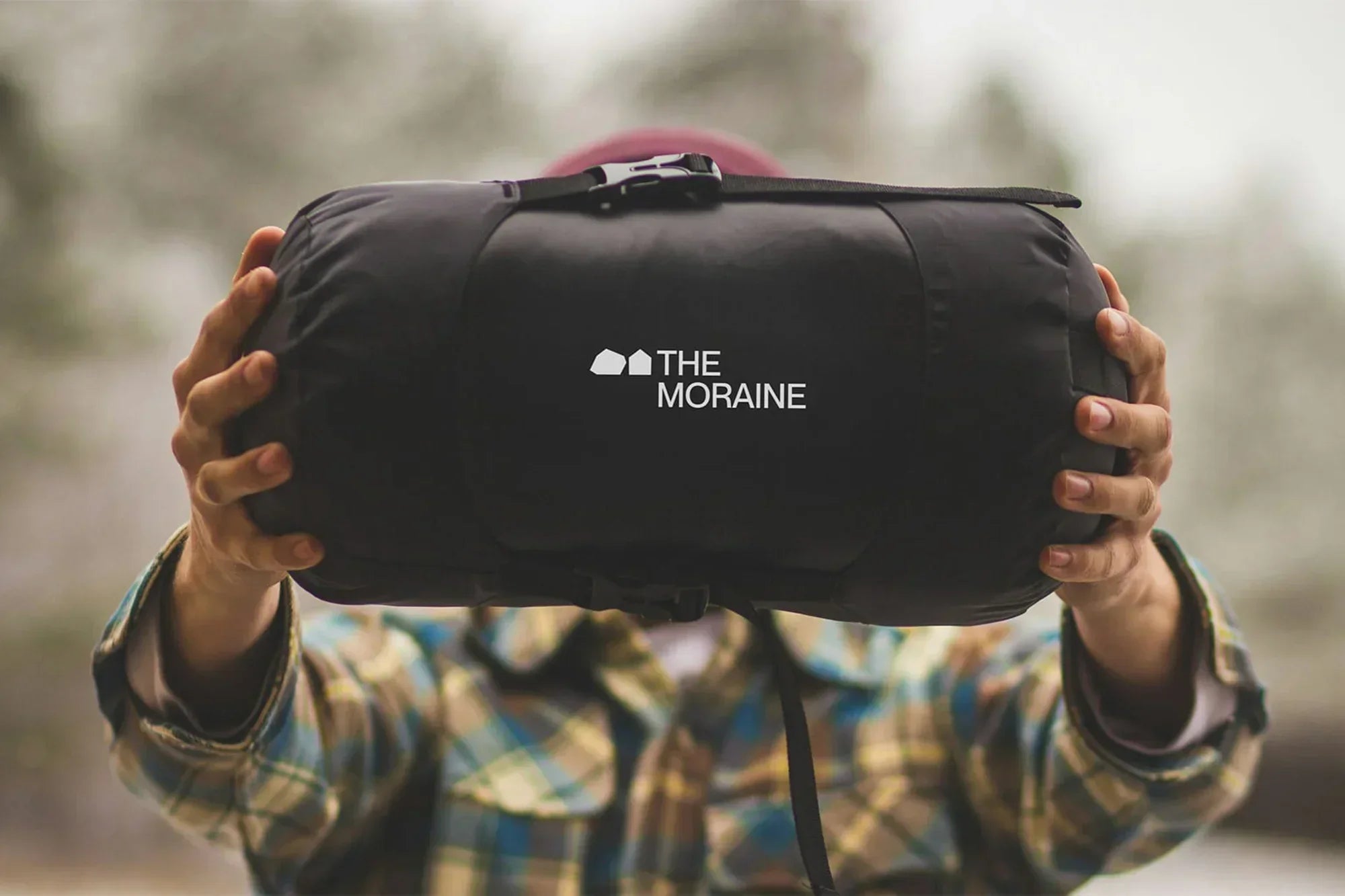
Watson names and brands The Moraine, a community in the Rocky Mountains.
The brief required the New York-based branding agency to reach active people who want to hike, bike, climb and ski in pristine nature without ignoring the nearby urban convenience. To capture that meeting point, Watson opted for The Moraine as the name, after the point at which two glaciers merge their lateral edges into a single ridge.
“Located between Boulder and Longmont, it sits at the intersection of urban energy and Colorado’s active outdoor culture,” explains Executive Creative Director Chris Dixon. “It appeals to people who want the best of both: access to vibrant communities, innovation, culture and connection, alongside the freedom to explore the mountains.” A moraine is the product of convergence, which applies to the community in a multitude of ways: the meeting of people and nature, of work and recreation, and of the neighbouring communities that shape the stretch of Colorado within which it exists. From that convergence, Watson built a brand strategy around aspiration, adventure and modern alpine culture.
The logo builds on that idea through two elements. A rough-hewn rock sits beside a simple pitched house, and together, their silhouettes resolve into an ‘M.’ “The logo takes that idea of living close to nature and uses very straightforward symbols to communicate that,” Associate Design Director Mauro Simeon tells us. “Stylistically, we wanted to keep the logo as rough as possible to honour the character of Colorado’s nature.” The rock has jagged, irregular edges rather than conforming into a tidy geometric shape, aiming to mirror a real piece of Colorado rock.
An icon set expands out from that same visual language, including a fir tree, a fish and a house – with each one possessing the same angular character as the mark. Across signage, totes, screens and more, Watson set the pictographs directly into running sentences, tucked in beside the words they represent. “We wanted to create an icon set that speaks the same language as the logo and, in the long run, can be recognised on its own,” Simeon reveals.
Typographically, phrases like ‘Up and out’ and ‘Roam Rest Repeat’ arc across photography, screens, signage and the water bottles that hang off a hiking pack, set on an irregularly jagged baseline. “The type sits on the same angular path that the stone in the logo is shaped from,” Simeon explains. The logo and the angled type function as two distinct elements, but their shared geometry, natural and random, knits them together. “On a communication level, the type treatment communicates movement,” he says. “The movement of going up and out into nature. The movement of climbing in challenging environments or riding a downhill bike on a trail. The movement of rocks rolling down a hill.” It ties the type to the active life the residents are there for and to the way Colorado's terrain behaves.
Holding it all together is Neue Montreal – a clean, grotesque sans serif chosen for what it leaves room for. “It’s a great typeface that feels outdoor but also leaves room for other elements in the brand system without being distracting,” Simeon tells us. The reasoning reflects how Watson thinks about a system as a whole. “The beautiful thing in branding is that a visual identity is a combination of a variety of brand elements. So not every element has to communicate everything, but the sum of all the elements has to cover what the brand wants to say.”
The same principle shapes the imagery, with commissioned active lifestyle and urban neighborhood photography by James Stukenberg sitting alongside CG renders of the building and interiors. “From the beginning, we viewed the photography, video and rendering work as part of a single story rather than three separate visual languages,” Dixon reveals, with the renders communicating architecture and interiors while the photography captures the lifestyle – the two bound by a shared tone, colour palette and pacing.